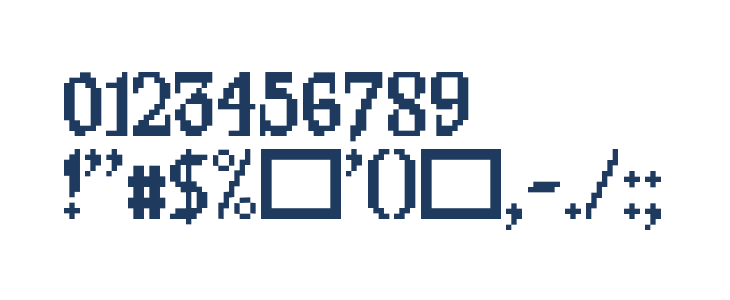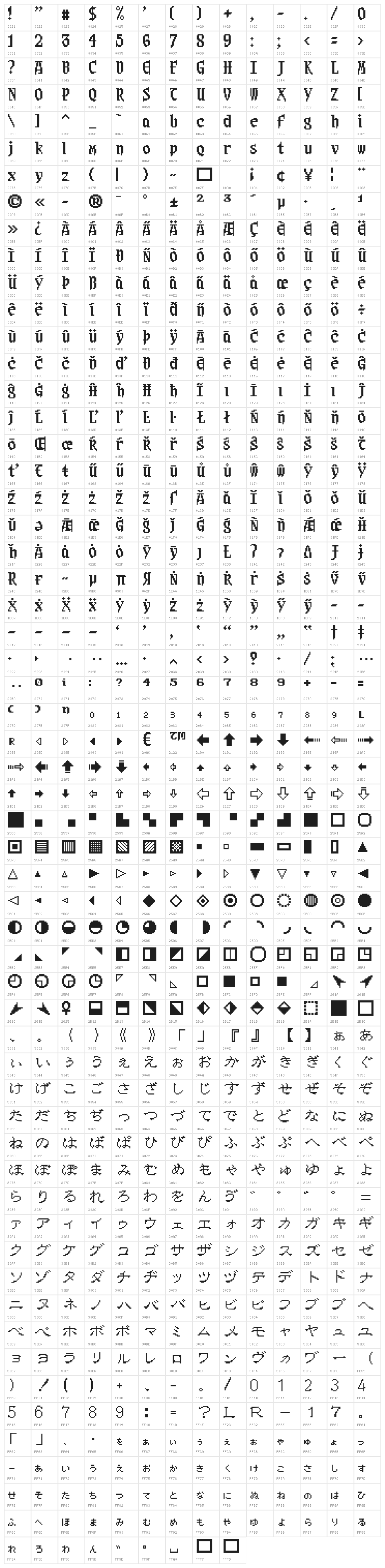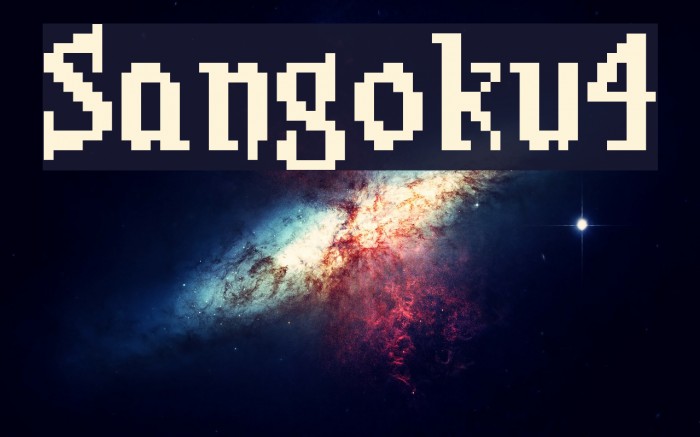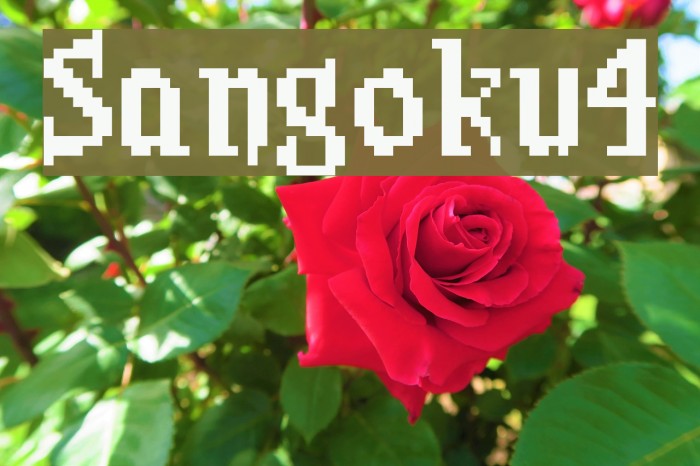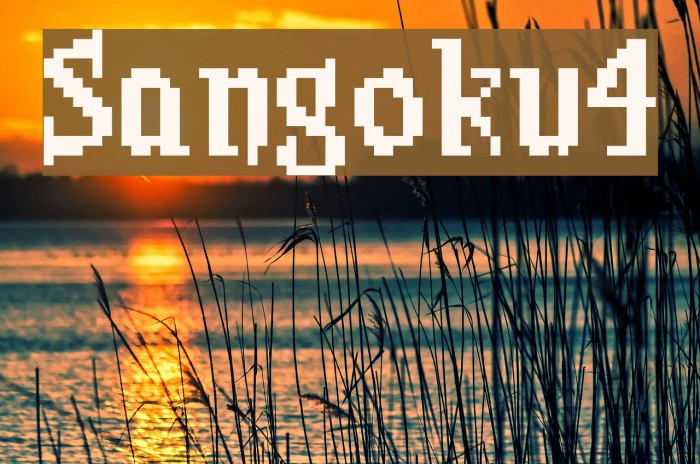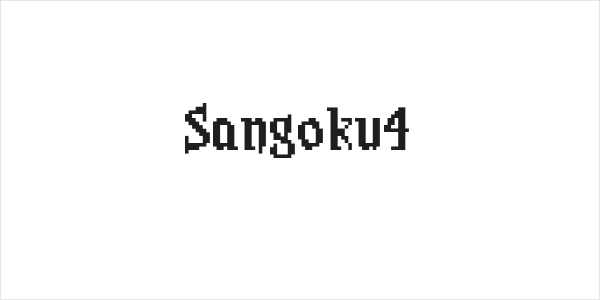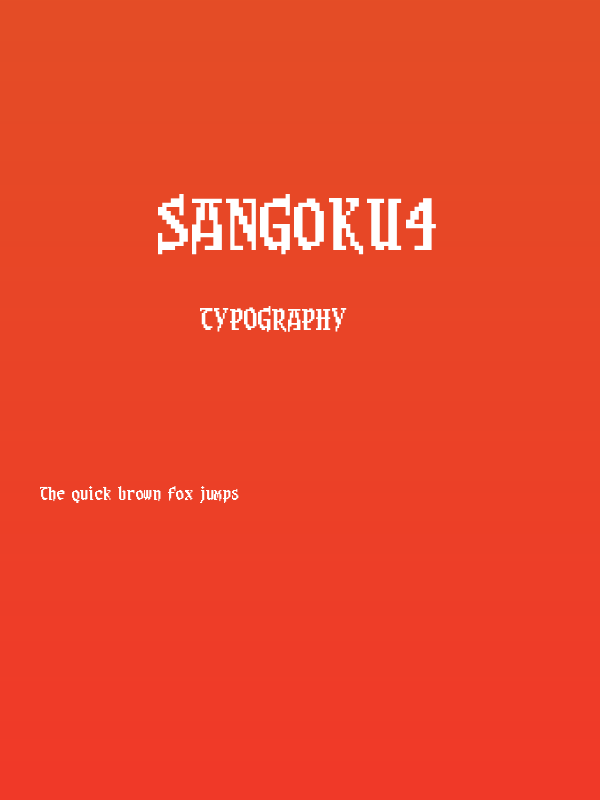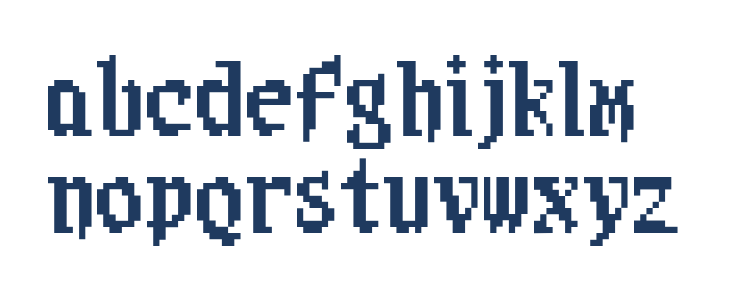
Sangoku4 Font
Sangoku4 Description
This font exhibits a bold and blocky style with a distinct pixelated appearance, reminiscent of retro video game graphics. The characters are uniformly structured, with sharp edges and a consistent height, giving it a cohesive and robust look. The uppercase and lowercase letters maintain a similar width, enhancing readability while preserving the unique aesthetic. Numbers and special characters follow the same design principles, ensuring uniformity across all glyphs. This font's nostalgic and digital feel makes it ideal for projects that aim to capture a vintage or tech-inspired theme.
| Proposed Projects | Ideal for video game design, retro-themed posters, digital art, and tech-inspired branding. |